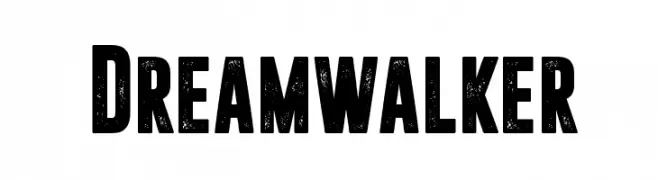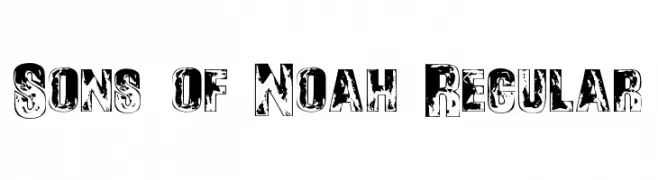
A decorative font styled like currency symbols and denominations.
A bold, decorative font with a hand-drawn, textured appearance.
A playful font with bold characters on hanging tags, perfect for informal and decorative projects.
A bold, distressed font with a vintage, grunge texture.
A decorative font with uppercase letters designed to resemble pencils.
A bold, distressed font with a grunge texture, perfect for impactful designs.
A bold, distressed font with a vintage, grunge aesthetic.
A bold, italicized font with a modern, outlined style.
A bold, distressed font with a vintage, rugged appearance.